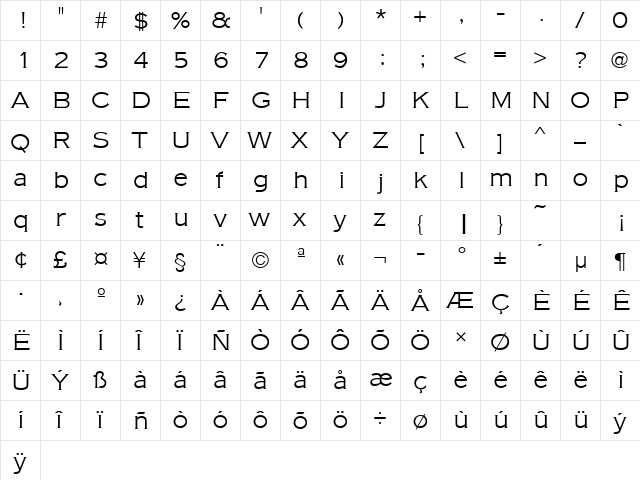
AmericanGotURWTLig Regular Font Preview
AmericanGotURWTLig Regular
Design Context for AmericanGotURWTLig Typeface
AmericanGotURWTLig takes a measured approach to typography — its balanced proportions and neutral character make it a reliable workhorse for both digital and print work.